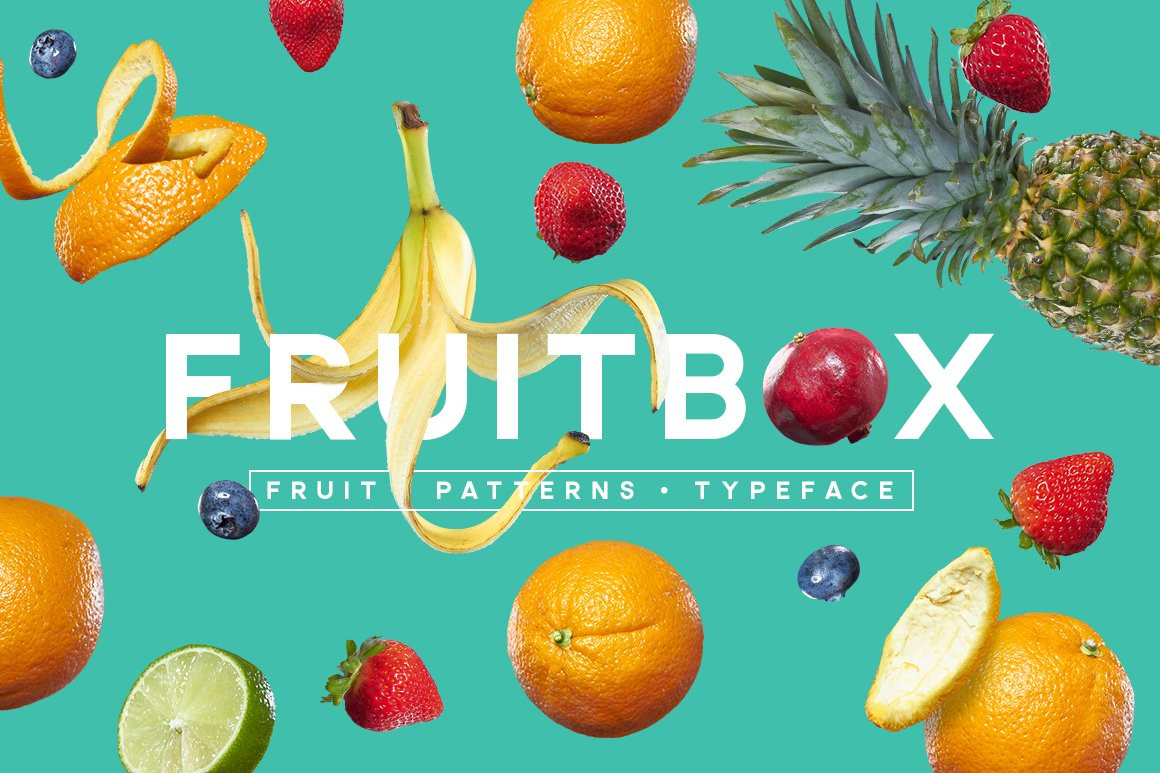
**FruitBox - Create Stunning Fruit Typographic Layouts instantly in Photoshop** From the team that brought you **FlowerType** and **POWDR** now bring you **FruitBox**. A tool kit of a solid sans serif font, 13 different types of fruit and 18 Photoshop patterns, youll be creating awesome fruit inspired posters in no time.